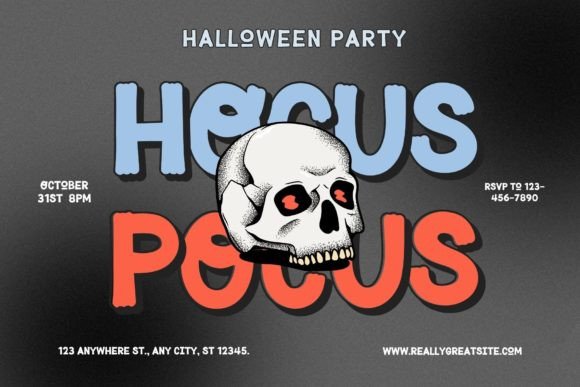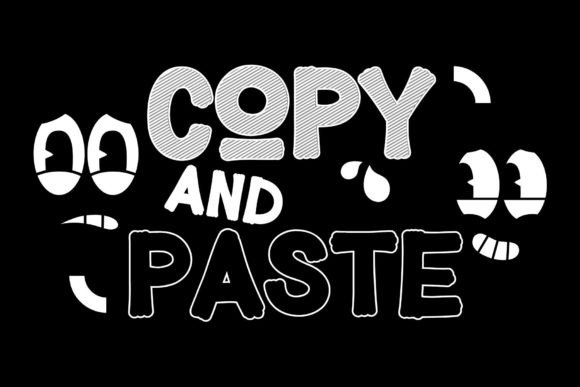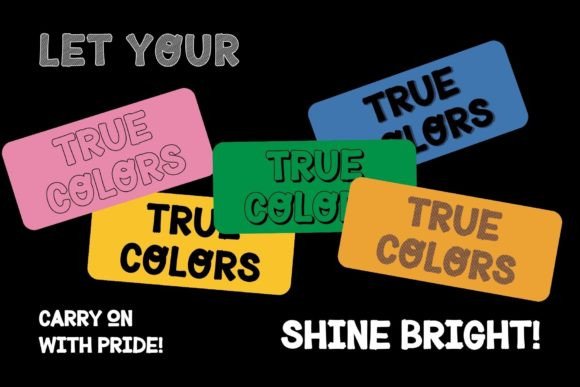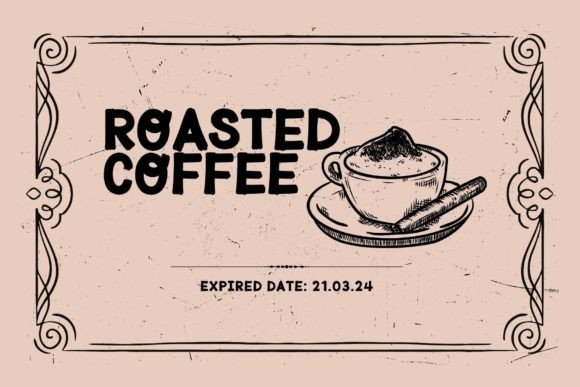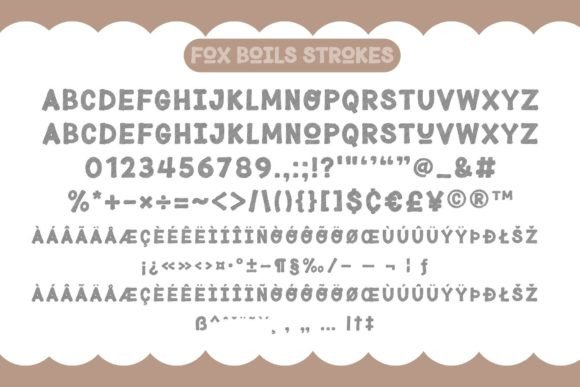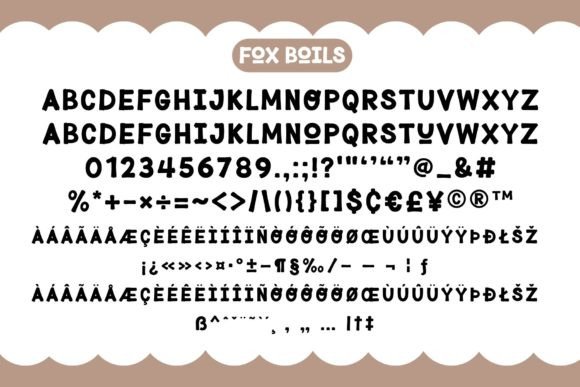
The Ultimate Display Font: Fox Boils Font Review and Guide
I’ll never forget the time I was working on a project for a client who needed a bold, eye-catching font to make their brand stand out. I spent hours scouring the internet for the perfect font, but nothing seemed quite right. That was until I stumbled upon Fox Boils Font. This 4-style display font has been a game-changer for my designs, and I’m excited to share my experience with you.
Fox Boils Font: What I Love
Fox Boils Font is a cool and fun-style display font that adds a captivating and energetic touch to your designs. Here are some things I love about it:
- ✨ Unique and expressive design that grabs attention
- ✅ Perfect for use in publications, menus, logos, business cards, or even printed on t-shirts
- 🎉 4 style variations to choose from, giving you flexibility and versatility
- 💡 Great for creating attention-grabbing headlines, t-shirt typography, banners, product labels, and more
Honest Review: Small Quirks and Limitations
While Fox Boils Font is an amazing display font, there are a few small quirks to be aware of:
- 🤔 Limited use for body text due to its bold and expressive design
- ⚠️ May not be suitable for very small font sizes, as some details may get lost
Fox Boils Font was designed with the goal of creating a unique and expressive display font that would add energy and excitement to designs. The designer drew inspiration from bold and playful typography, combined with a touch of whimsy and creativity. The result is a font that’s perfect for designers, crafters, and creative hobbyists who want to make a statement.
| What is Fox Boils Font? | Fox Boils Font is a 4-style display font designed to add a captivating and energetic touch to your designs. |
| What can I use Fox Boils Font for? | Fox Boils Font is perfect for use in publications, menus, logos, business cards, or even printed on t-shirts. |
| Is Fox Boils Font suitable for body text? | No, Fox Boils Font is best used for headlines, titles, and attention-grabbing designs, rather than body text. |